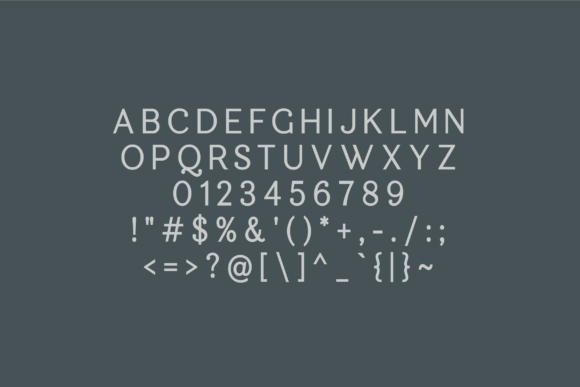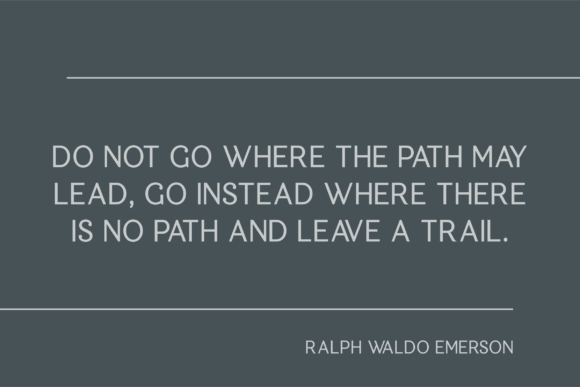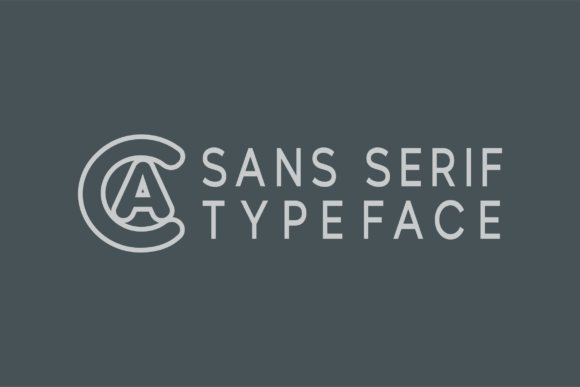
Introduction to Kalistaeus Font
Remember that moment when you finally found the perfect font to elevate your design project? The moment when everything comes together, and your creative vision is brought to life? For designers, this feeling is priceless, and that’s exactly what we’re excited to share with you today – the Kalistaeus Font.
This sleek and stylish sans serif typography is more than just a design resource – it’s a game-changer. With its broad spectrum of characters, numbers, and punctuation, Kalistaeus Font is supremely adaptable, allowing you to effortlessly enhance logos, create elegant wedding invitations, and articulate the depth in quotes.
Key Features of Kalistaeus Font
- High-quality design resource ideal for creative projects and graphic design.
- Designed with attention to detail, featuring crisp and clear typography.
- Unique characteristics: Kalistaeus Font offers a distinctive and modern aesthetic, perfect for adding a touch of elegance to any creative project.
Honest Review: Kalistaeus Font
As a designer, I’m always on the lookout for high-quality design resources to elevate my creative projects. The Kalistaeus Font has caught my attention, and I’m excited to share my thoughts on it.
- High-quality typography: The Kalistaeus Font boasts elegant, modern typography that’s perfect for a variety of design applications.
- Limited font weights: The Kalistaeus Font currently offers a limited range of font weights, which may not be suitable for all design projects.
- No extended character set: I found that the font lacks an extended character set, which could be a limitation for designers working with non-English text.
Overall, the Kalistaeus Font is a solid addition to any designer’s toolkit. While it has some limitations, its high-quality typography and transparent background make it a great resource for creative projects. I’m excited to see how the font evolves and improves in the future.
Kalistaeus Font
The Kalistaeus Font is a high-quality, free download design resource ideal for various creative projects. With its transparent background, this font is perfect for designers who want to add a touch of elegance to their designs.
Here are some tips to get the most out of the Kalistaeus Font:
- Use it for titles, headings, or body text to add a touch of sophistication to your designs.
- Combine it with other design elements to create a cohesive look.
The Kalistaeus Font is ideal for various creative projects, including: